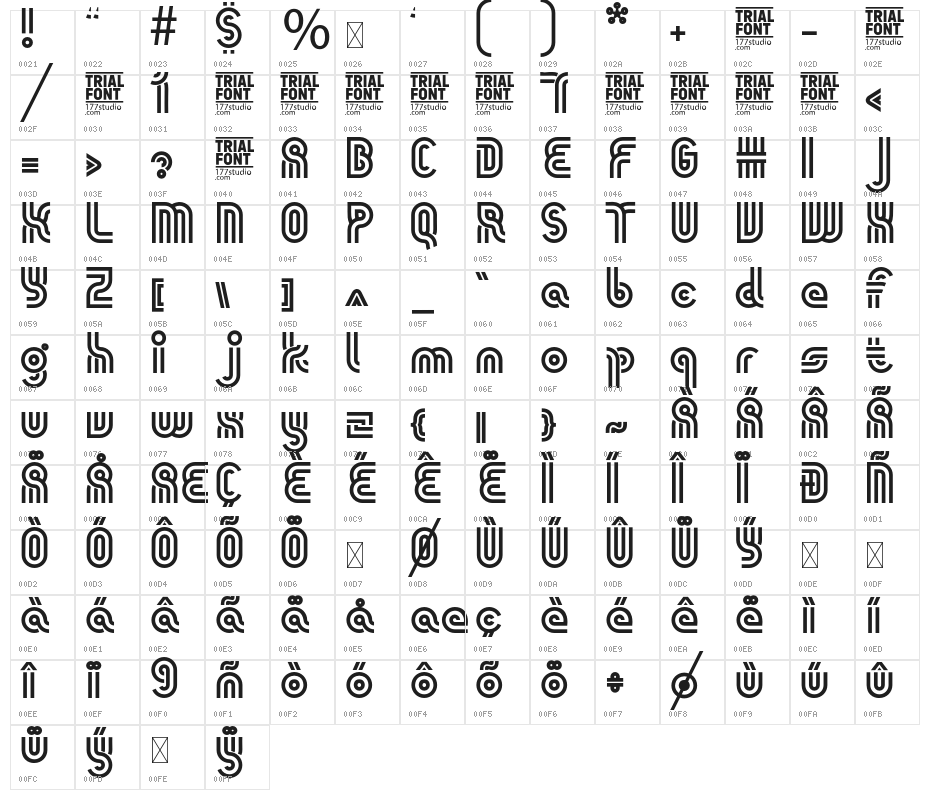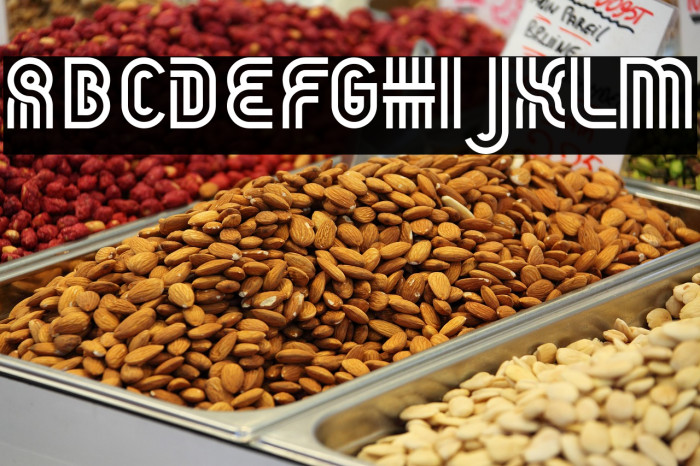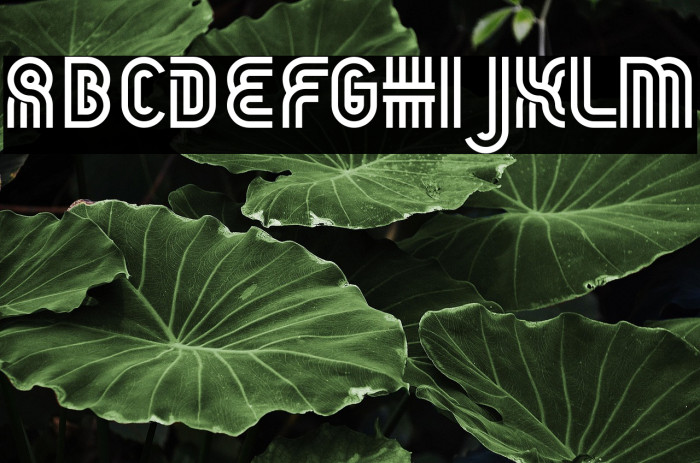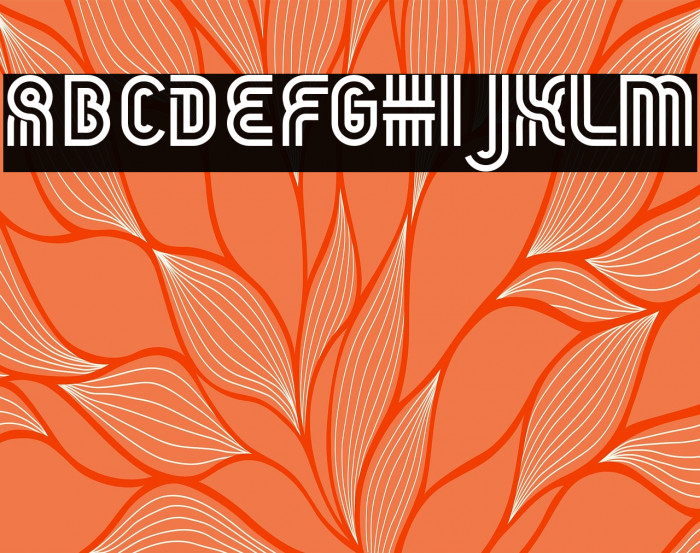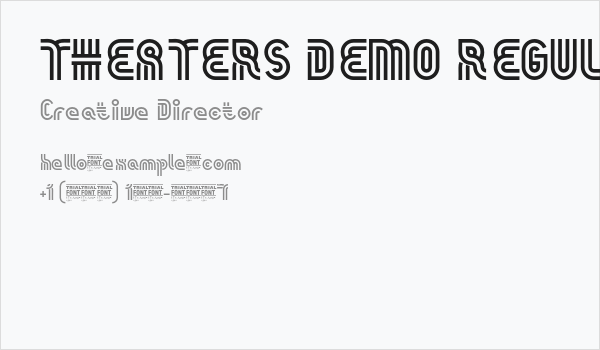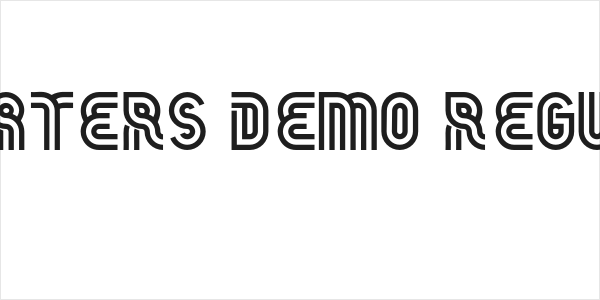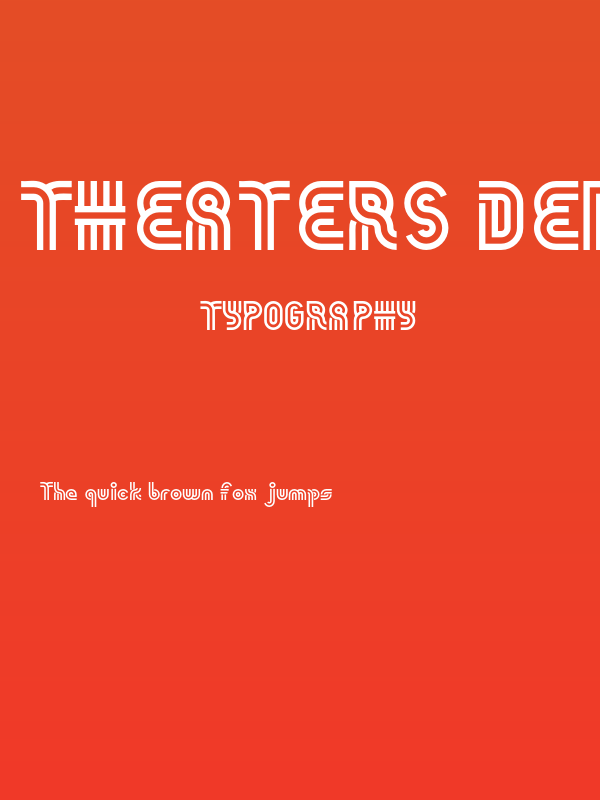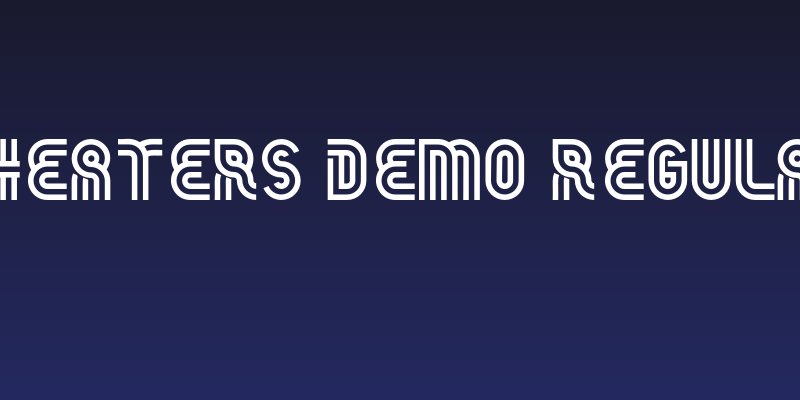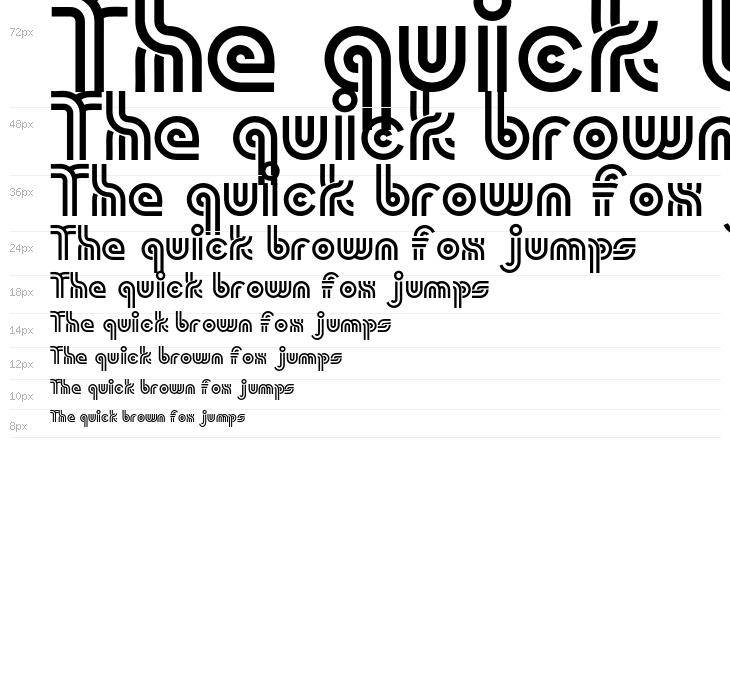
THEATERS DEMO REGULAR Font
THEATERS DEMO REGULAR Description
This font features a unique and modern design with a geometric and decorative style. The characters are constructed with bold, parallel lines that create a sense of movement and rhythm. The uppercase and lowercase letters maintain a consistent design, with some characters incorporating rounded edges and others featuring sharp angles. The numbers and special characters follow the same stylistic approach, ensuring a cohesive look across all elements. This font's distinct appearance makes it suitable for eye-catching designs.
| Proposed Projects | Ideal for branding, posters, headlines, and any project requiring a striking, modern aesthetic. |